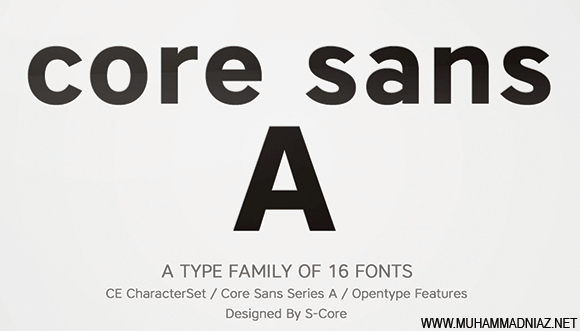
Core Sans A Family from S-Core is a modern sans-serif typeface that is clean, simple and highly readable. It is a part of the Core SFammilyans Series. Letters in this type family are designed with genuine neo-grotesque and neutral shapes without any decorative distractions. The spaces between individual letter forms are precisely adjusted to create the perfect typesetting. Core Sans A family
Core Sans A Font consists of 8 weights
(Thin, Extra Light, Light, Regular, Medium, Bold, Extra Bold, Heavy) with their corresponding italics.
Core Sans A contains complete Basic Latin, Cyrillic, Central European, Turkish, Baltic character sets. Each font includes proportional figures, tabular figures, numerators, denominators, superscript, scientific inferiors, subscript, fractions and case features.